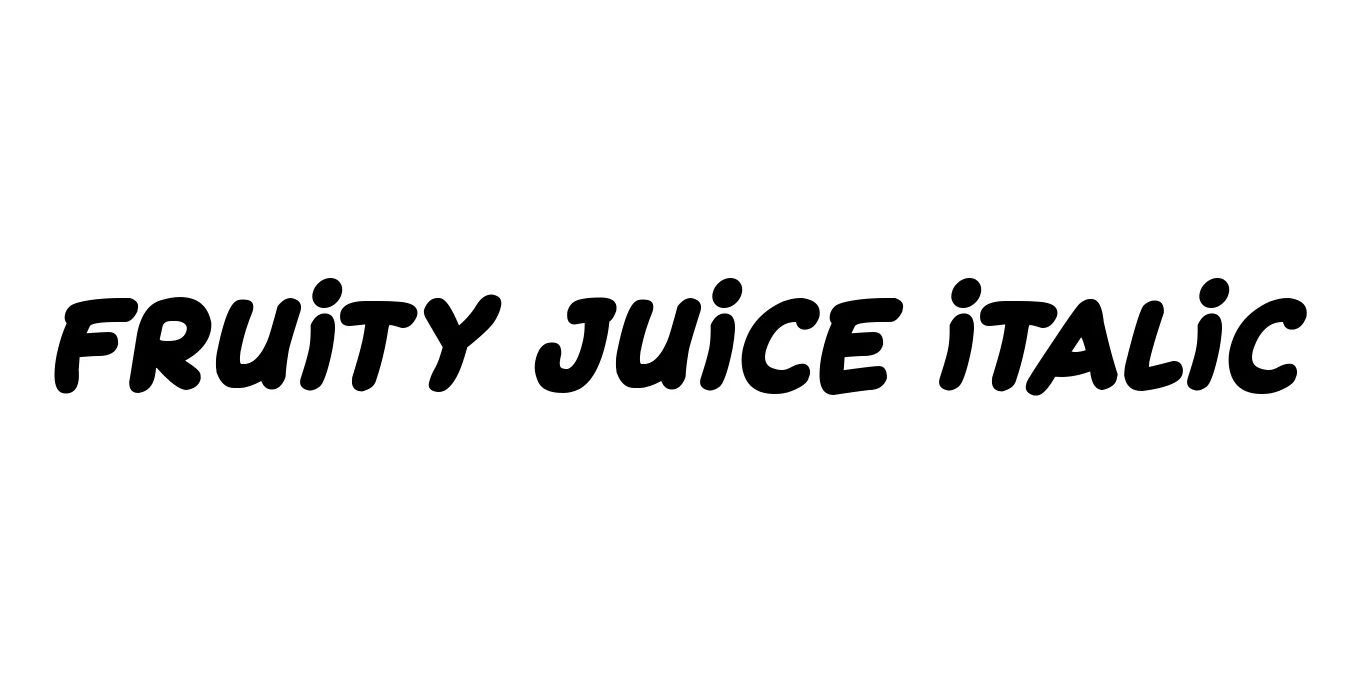
Fruity Juice Italic
Designed by Billy Argel
| Category | Script / Display |
| Designer | Billy Argel |
Fruity Juice Italic is a vibrant and energetic hand-drawn typeface that captures the essence of summer and playfulness. Designed by the renowned Billy Argel, this font features organic, brush-like strokes that give it a personal and approachable feel. The italicized slant enhances the sense of motion, making it an excellent choice for dynamic designs that require a touch of spontaneity and flair.
This typeface is particularly effective in display marketing and branding for the food and beverage industry. Its thick, legible characters and unique texture allow it to stand out on packaging and digital banners alike. Whether you are creating a logo for a juice bar or designing a flyer for a beach party, Fruity Juice Italic provides a distinctive aesthetic that is both fun and professional.
Fruity Juice Italic Best Uses
Perfect for creating memorable logos in the food and drink sector.
Ideal for catchy headlines and vibrant Instagram story graphics.
Works beautifully for screen-printed t-shirts and summer merchandise.
Great for labels on organic snacks, juices, and health products.